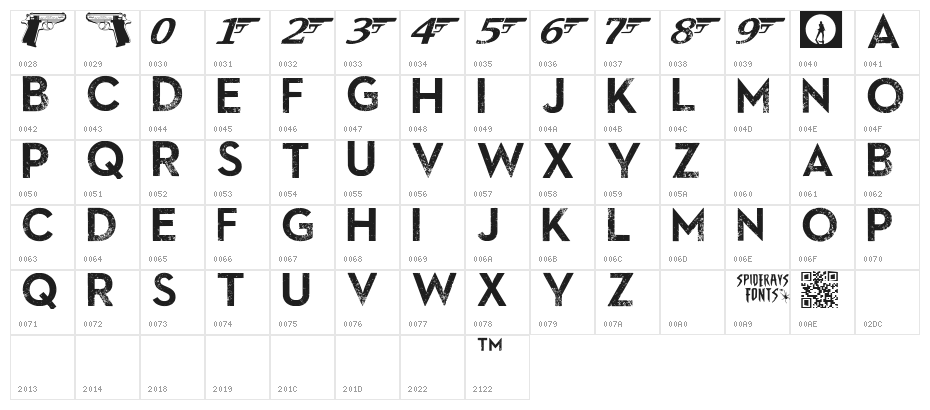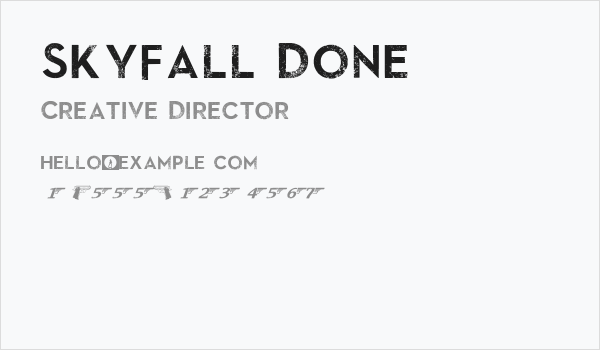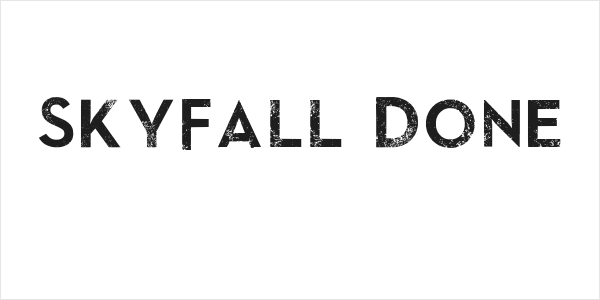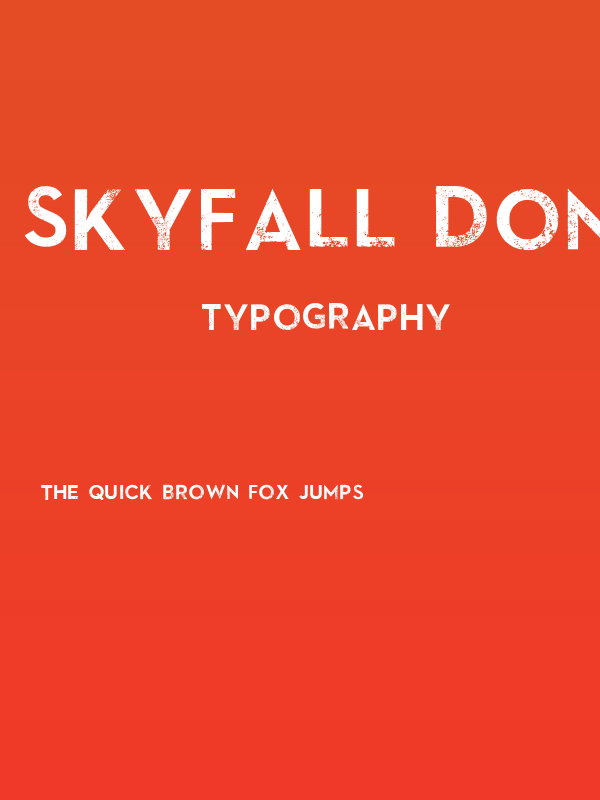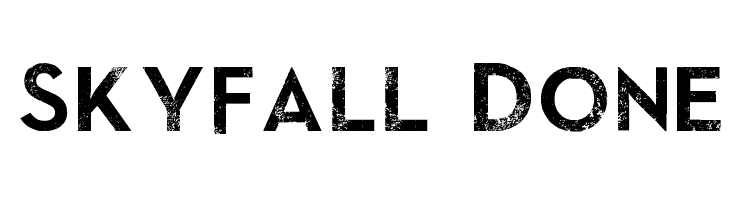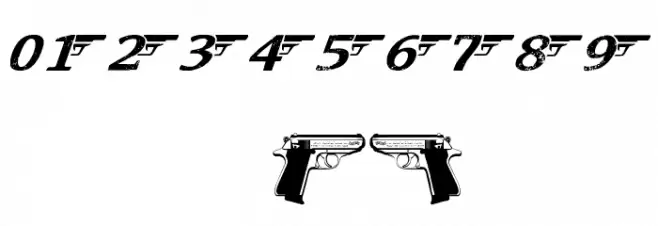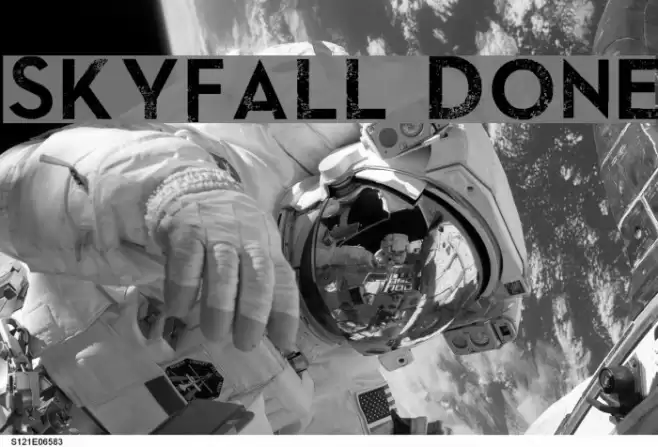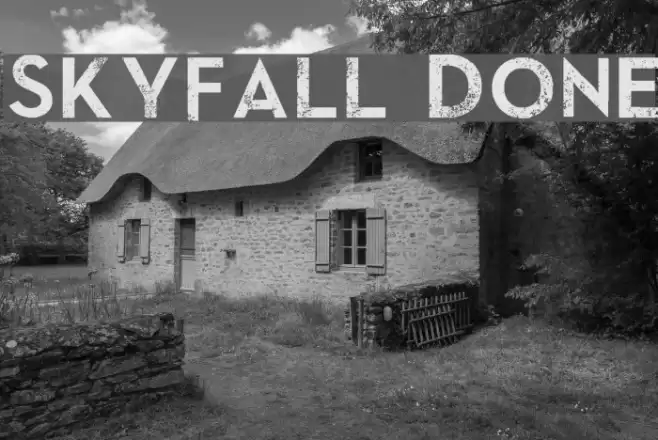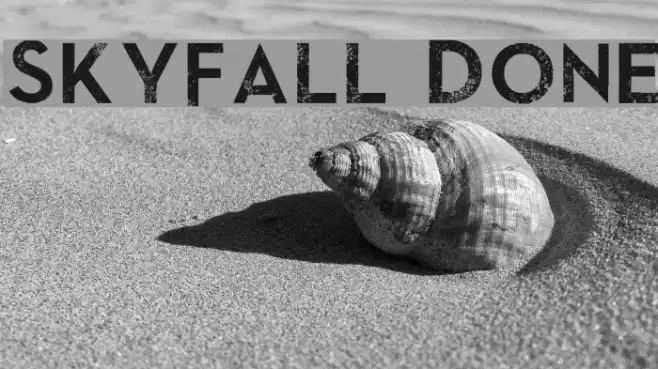
This font features a bold, distressed style with a gritty texture that gives it a rugged, vintage appearance. The uppercase letters are strong and impactful, making them ideal for attention-grabbing headlines. The numbers are uniquely designed with a gun motif, adding a playful yet edgy element to the font. The overall design is reminiscent of classic action movie posters, with a modern twist. The texture adds depth and character, making it suitable for projects that require a bold statement.
| Overall Style | Vintage, Decorative |
| Proposed Projects | Ideal for movie posters, video game titles, action-themed branding, and promotional materials that require a bold, edgy look. |